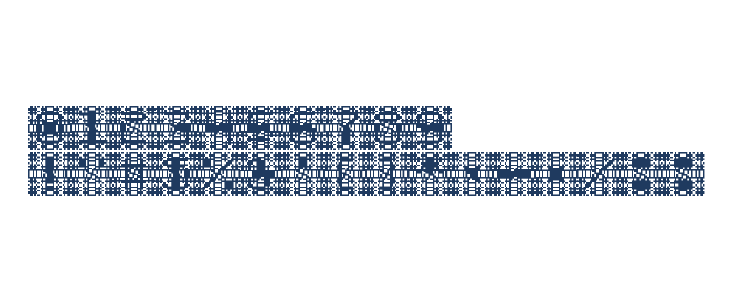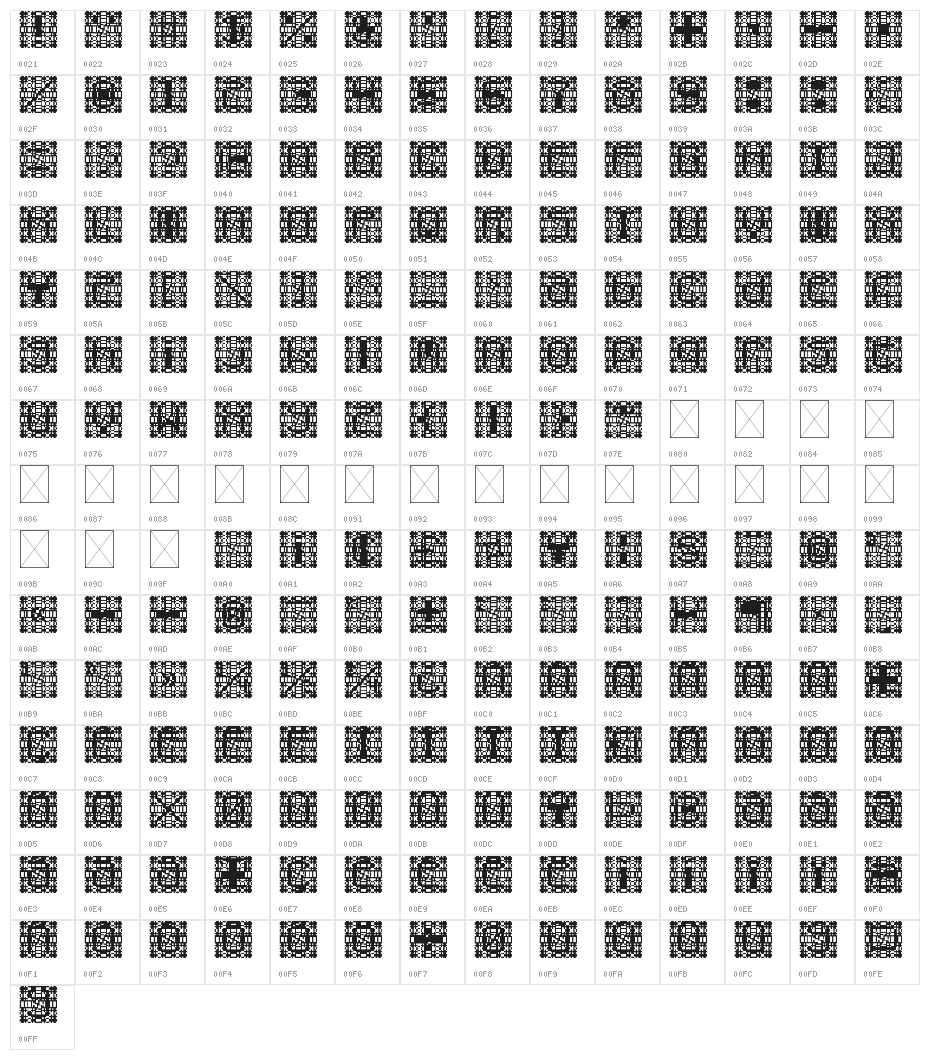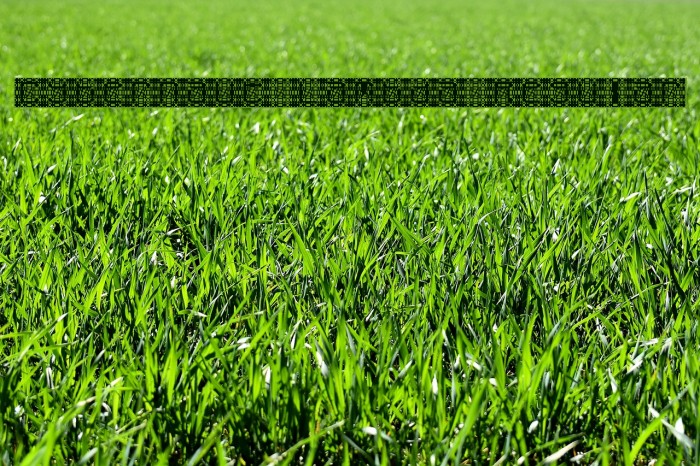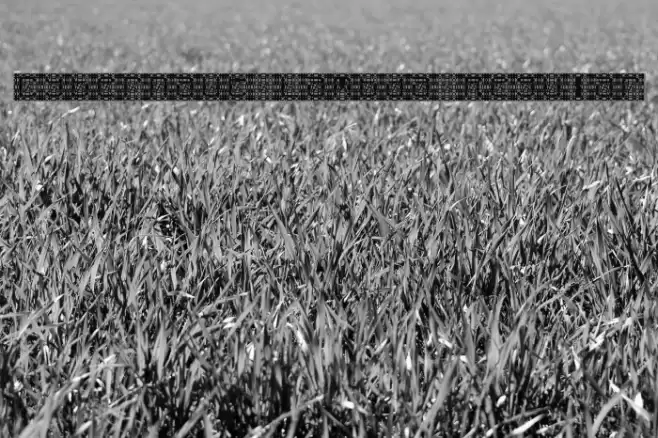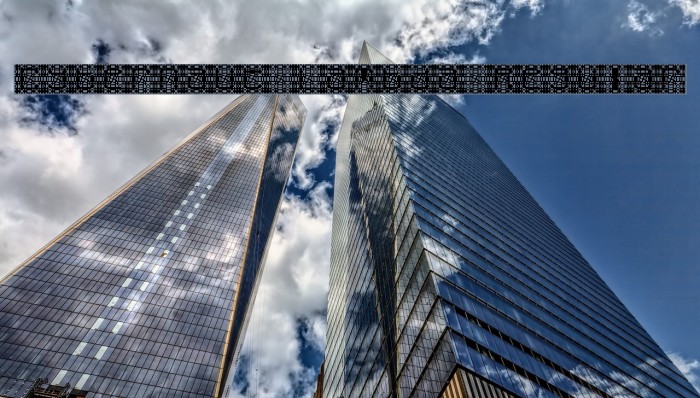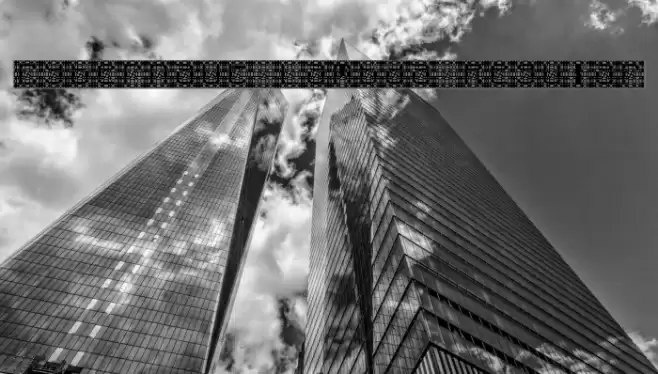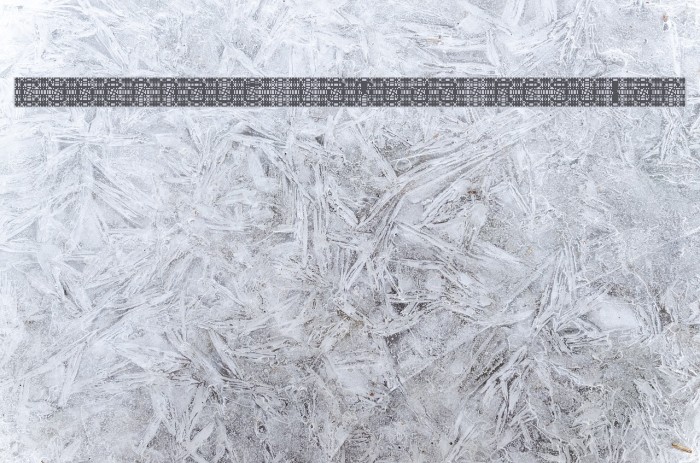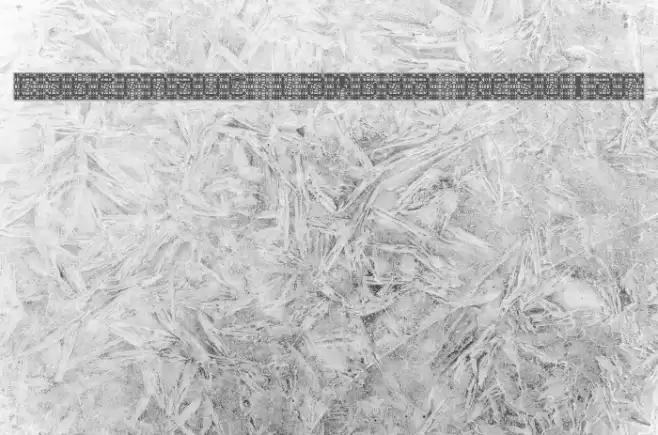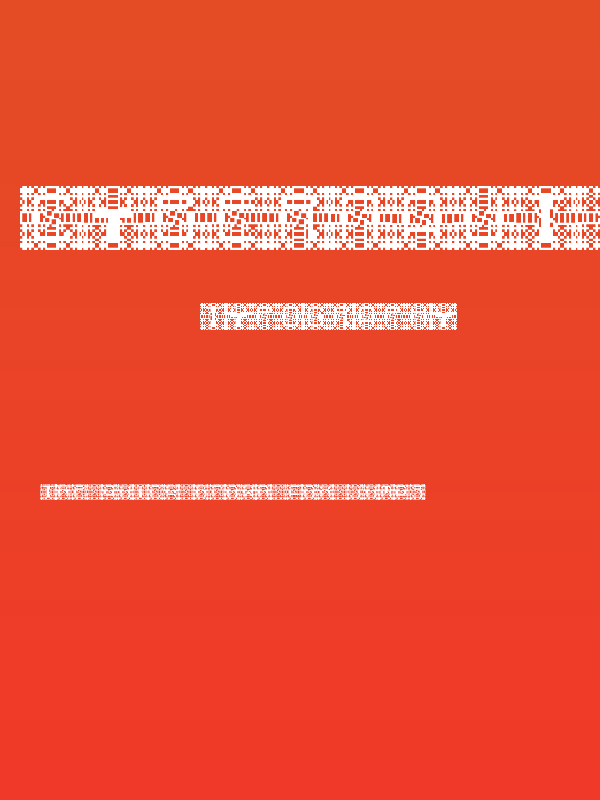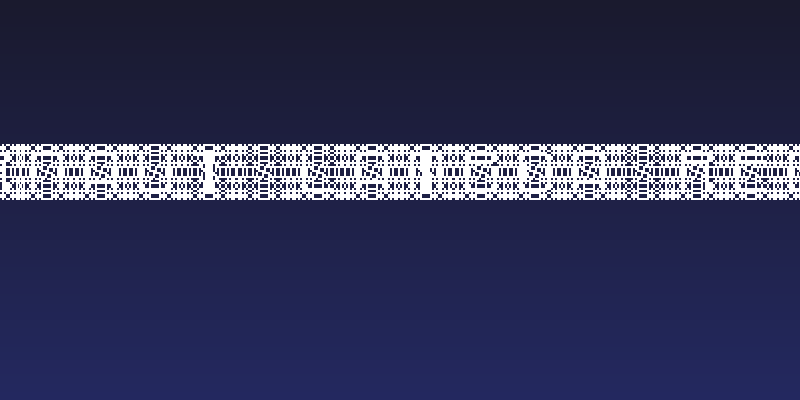
Cybernaut Lambda Regular Font
Cybernaut Lambda Regular Description
This font features a highly intricate and decorative design, characterized by a complex pattern of interwoven lines and geometric shapes. Each character is composed of a dense network of lines, creating a visually striking and almost maze-like appearance. The font's unique style is reminiscent of digital or cybernetic aesthetics, making it suitable for futuristic or tech-themed projects. The characters are uniform in width, contributing to a monospaced feel, while the overall design maintains a consistent level of detail across all letters and symbols.
| Proposed Projects | Ideal for sci-fi themed posters, digital art, video game graphics, and tech branding. |